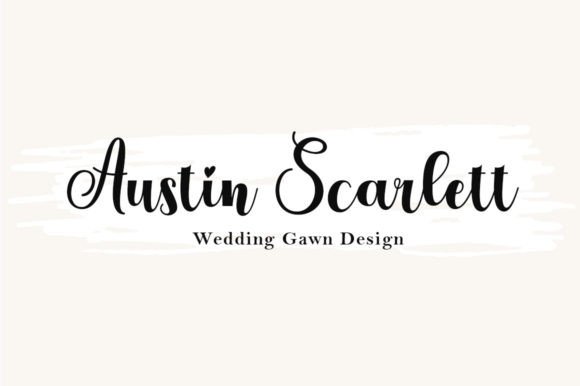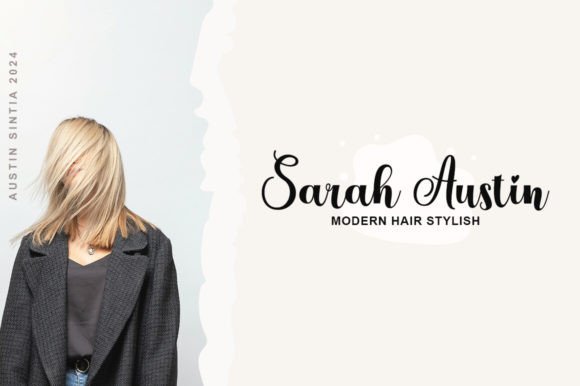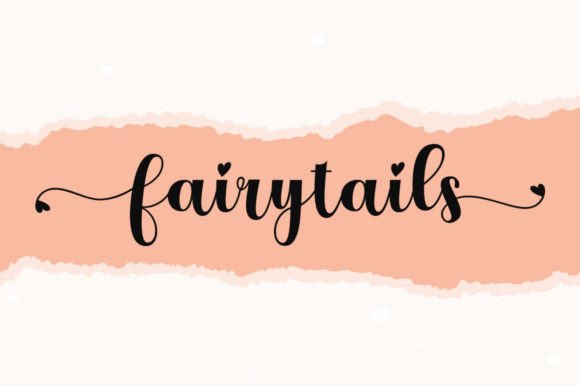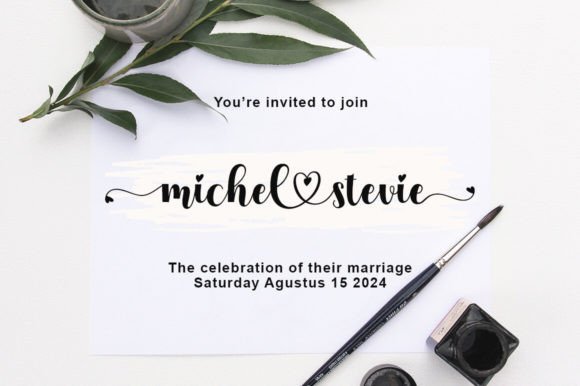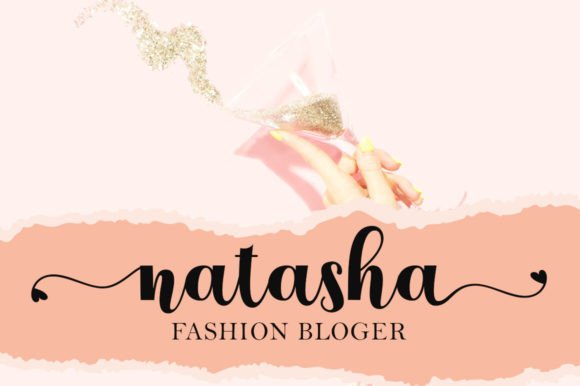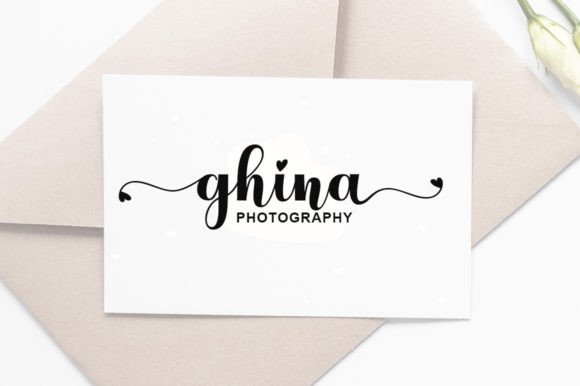
The Elusive Perfect Font: My Encounter with Austin Sintia
I’ll never forget the time I was working on a wedding invitation project, and my client asked for a font that was elegant, yet playful; something that would capture the essence of their special day. I scoured the internet, tried countless fonts, but nothing seemed quite right. That was until I stumbled upon Austin Sintia, a stylish and very elegant handwritten font that has since become a staple in my design toolkit.
A Honest Review: The Good, the Bad, and the Quirky
What I Love About Austin Sintia ✨
- ✅ Elegant and stylish handwritten design that’s perfect for wedding invitations, thank you cards, and more
- ✅ PUA encoded for easy access to glyphs and alternates
- ✅ Highly versatile and can be used for a variety of design projects, from logos to greeting cards
- ✅ The font’s unique character and charm add a personal touch to any design
- ⚠️ Some users may find the font’s elegance and cursive nature a bit challenging to pair with other fonts
- ⚠️ As with any script font, it’s essential to use it in a way that doesn’t overpower the design
The Story Behind Austin Sintia: Designer Inspiration
While the true story behind Austin Sintia’s creation may be unknown, it’s easy to imagine a designer with a passion for handwriting and elegance. Perhaps they wanted to create a font that would capture the essence of handwritten notes and letters, but with a modern twist. Whatever the inspiration, Austin Sintia is a beautiful addition to the world of typography.
A: PUA (Private Use Area) encoding allows font users to access a wide range of glyphs, alternates, and special characters. This means you can easily switch between different versions of letters, use special characters, and create unique designs.
Q: How do I pair Austin Sintia with other fonts?
A: Pairing Austin Sintia with other fonts requires some experimentation. Try pairing it with clean sans-serif fonts or classic serif fonts to create a beautiful contrast. You can also experiment with other script fonts for a more elegant look.